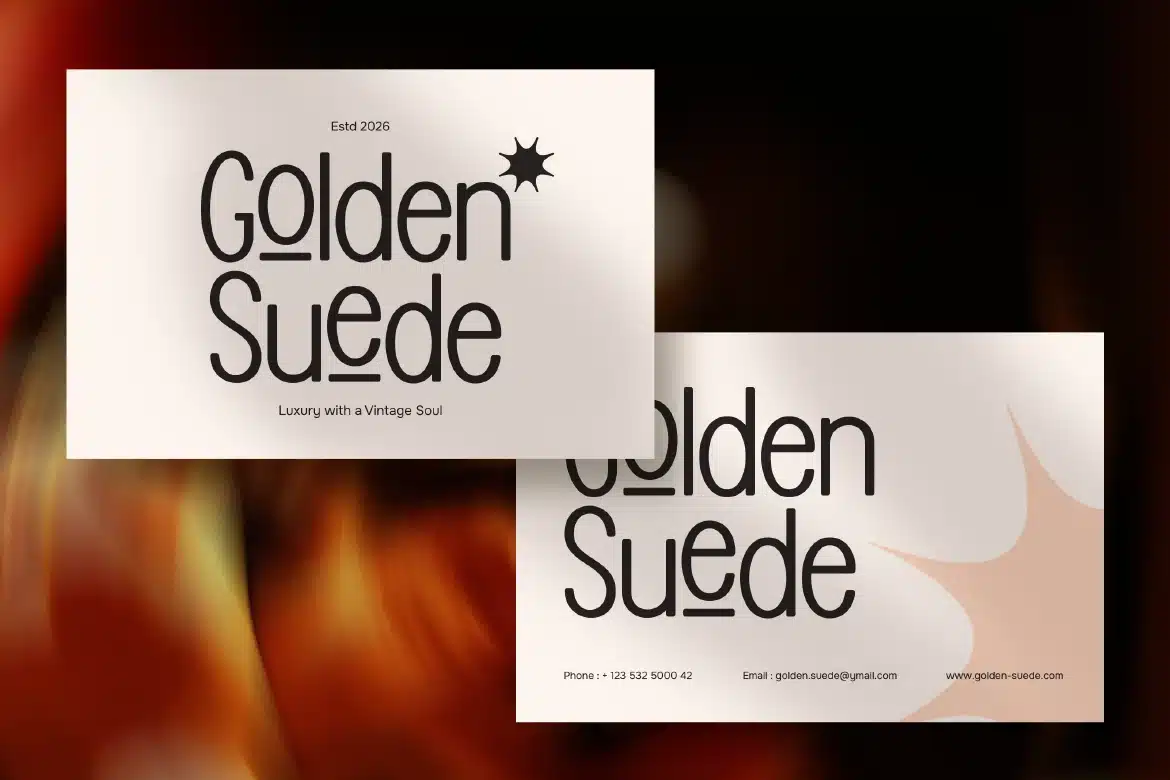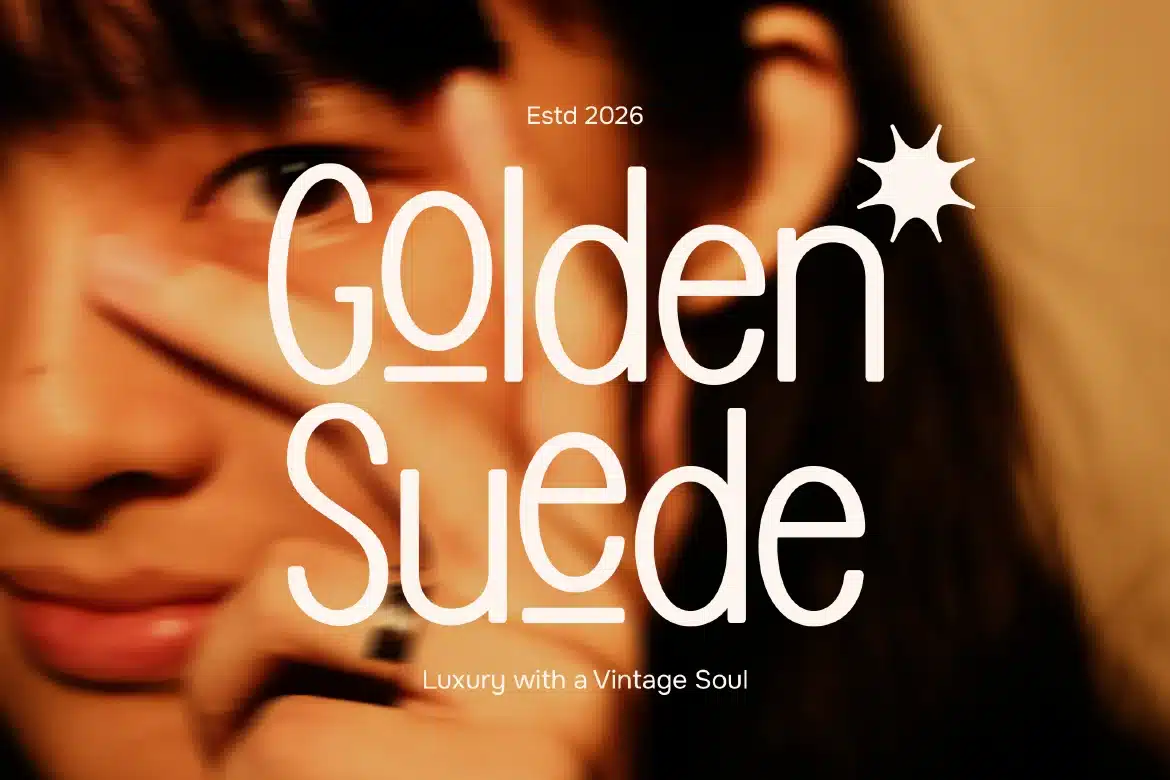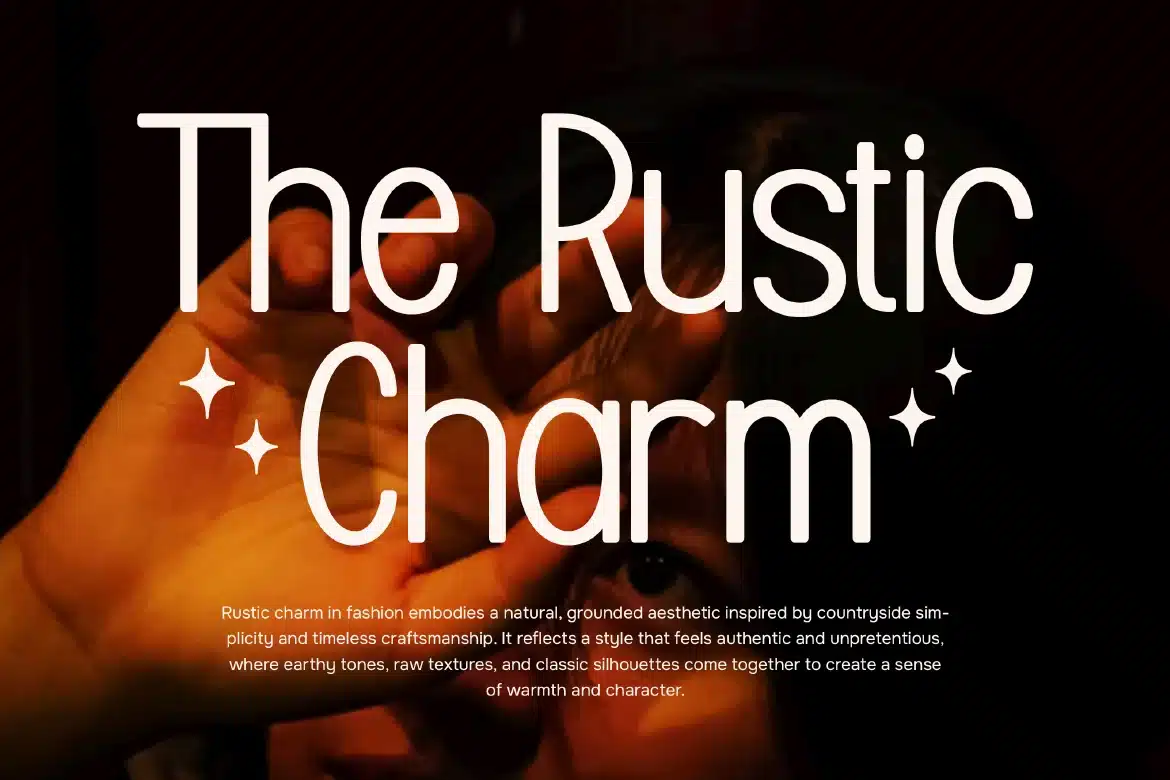
Modern Sans Serif – Linova Font
Modern Sans Serif Font - Linova
Linova is a modern sans serif font designed with clean lines, balanced proportions, and a sleek contemporary style. Its minimalist structure creates a clear and professional look, making it highly versatile for a wide range of design needs. With its refined simplicity, Linova delivers a fresh and modern aesthetic that feels both functional and visually appealing.
Who Should Use Linova?
Linova is perfect for designers, creatives, and businesses looking for a clean and modern typeface with a professional tone. It’s especially suitable for projects that require clarity, simplicity, and a contemporary visual identity.
Modern and corporate branding
Logo and identity design
Editorial and magazine layouts
Web and UI/UX design
Advertising and marketing materials
Social media graphics
Packaging design
Clean typography projects